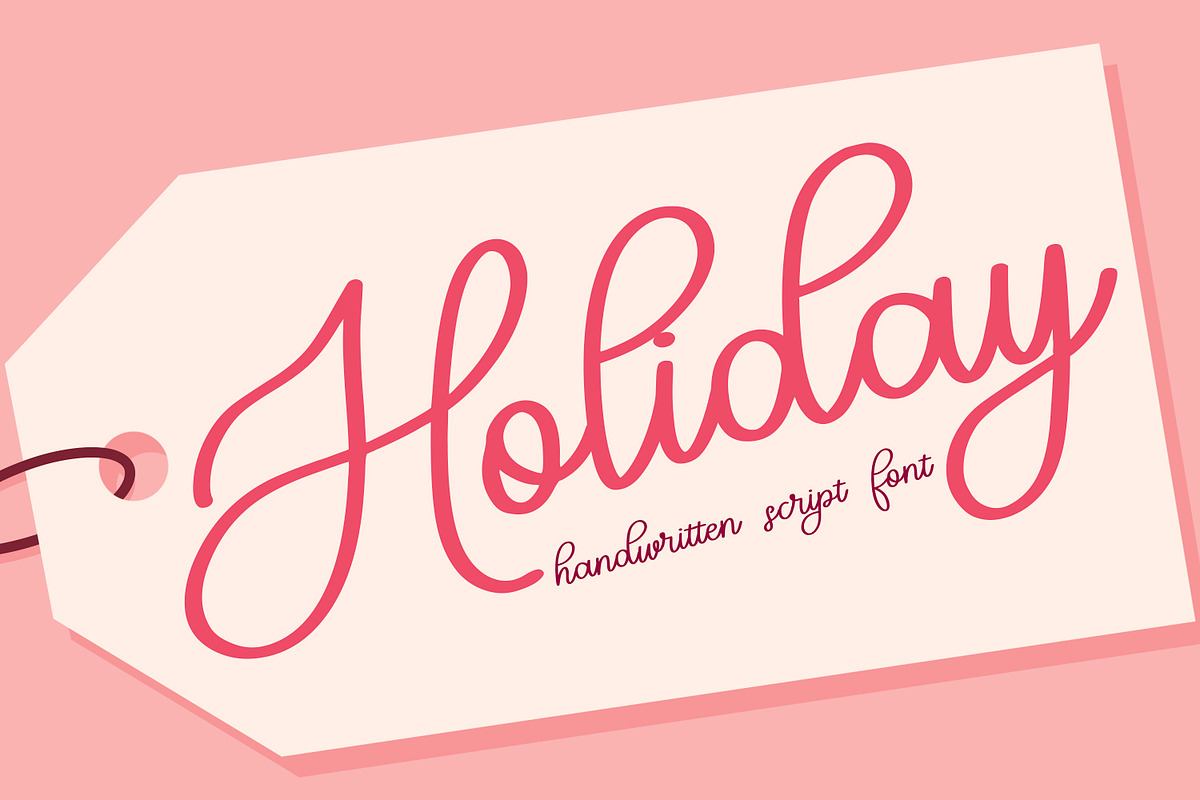
Holiday Handwritten Script Font Free Download
Holiday Handwritten Script Font Free Download is a cheerful and elegant script typeface that captures the warmth and joy of festive seasons. With its smooth, flowing strokes and hand-lettered charm, this font is perfect for holiday cards, gift tags, party invitations, seasonal branding, and cozy social media graphics.
Designed to feel personal and joyful, Holiday Handwritten Script Font Free Download brings a touch of handmade magic to every design. Whether you’re crafting a Christmas greeting or a festive product label, this font adds just the right amount of sparkle and heart.